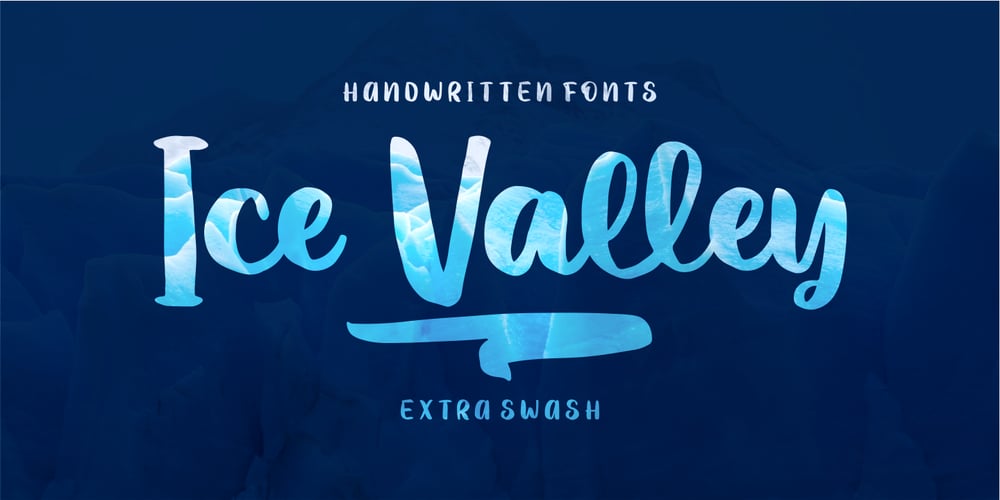
Ice Valley
Ice Valley font
Ice Valley Font Family was designed by Good Java and published by Good Java Studio. Ice Valley contains 1 styles and family package options. Introducing Ice Valley Hand-drawn Fonts The Ice Valley hand-drawn font is perfect for logos, invitations, stationery, wedding designs, social media posts, advertisements, product packaging, product designs, label, photography, watermark, special events or anything. This font includes: Ice Valley OTF font file, Ligatures, and Multilingual support.